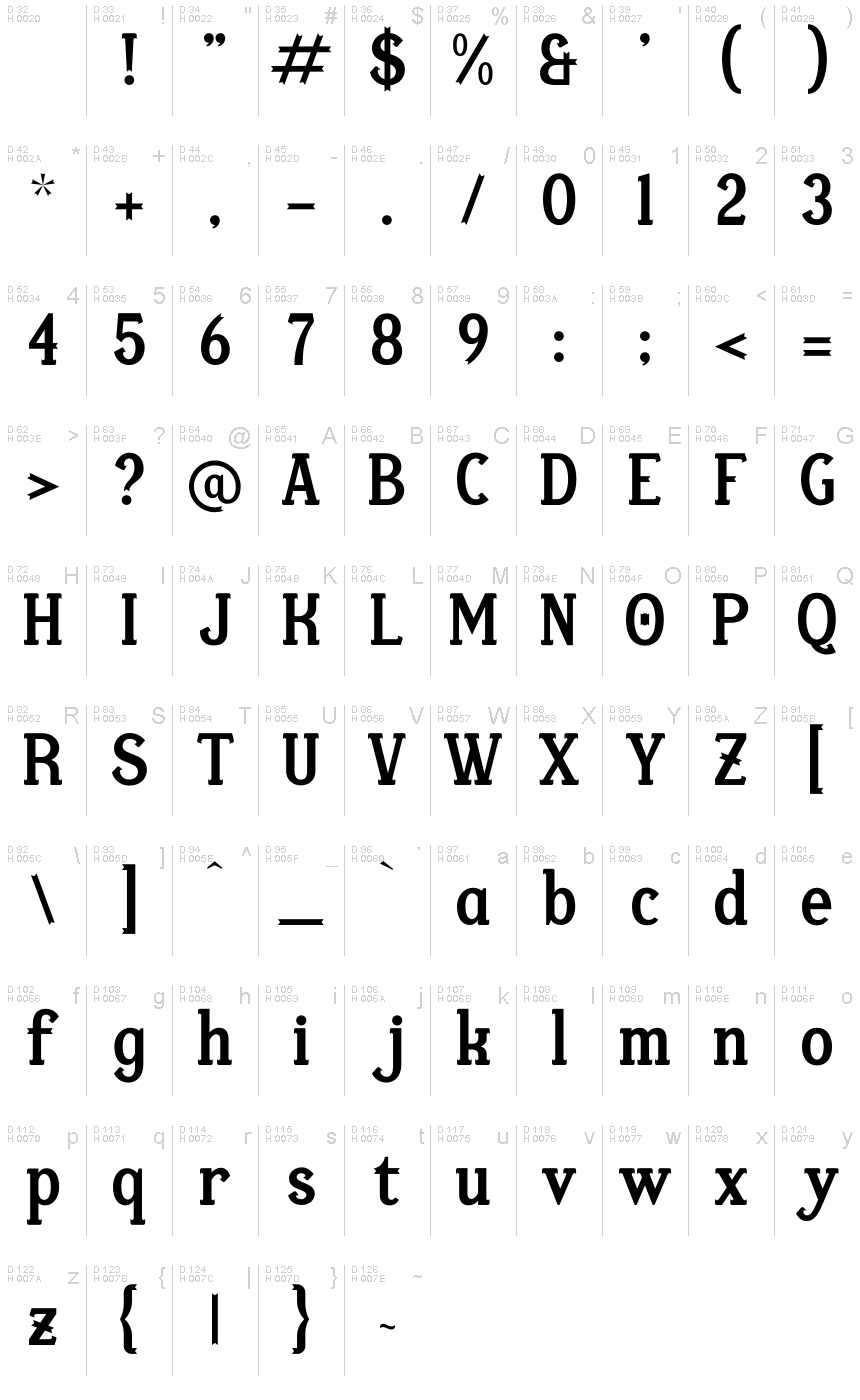
Giblant
Giblant, a captivating serif font crafted by Storytype Studio, exudes an air of sophistication and timelessness. Its condensed, elegant strokes create a striking visual presence, effortlessly blending tradition with a modern flair. The font's balanced proportions and refined details lend an air of sophistication, making it a compelling choice for projects seeking to convey a sense of refined elegance and classic style.
Giblant's versatility shines through, making it a versatile font suitable for a wide range of design applications. Its condensed structure and clean lines make it an excellent choice for editorial layouts, branding, and high-end print materials, where a touch of refined elegance is desired. Additionally, Giblant's legibility and adaptability make it a compelling option for both digital and print-based designs, allowing designers to create visually striking and impactful compositions.